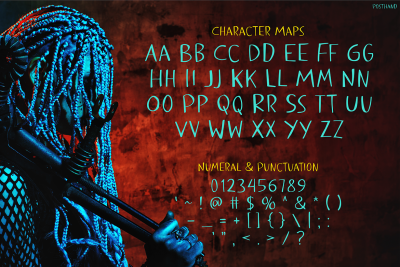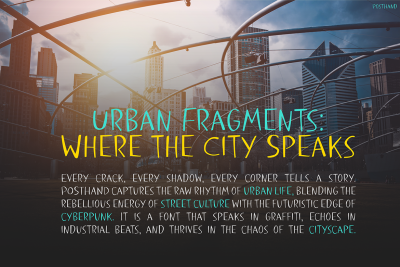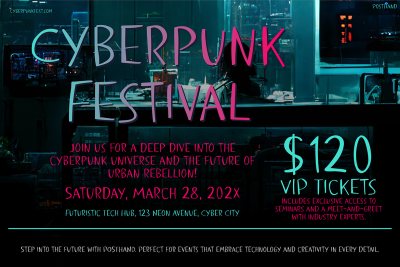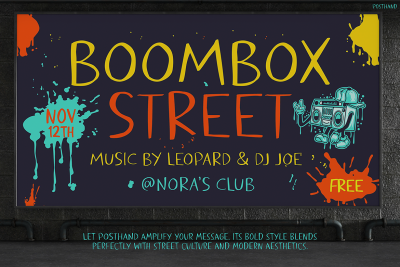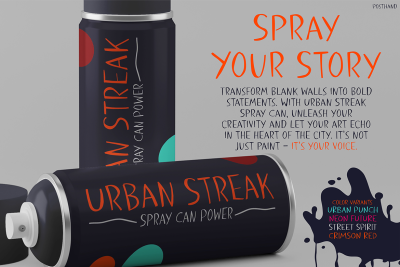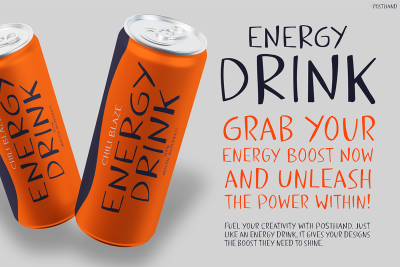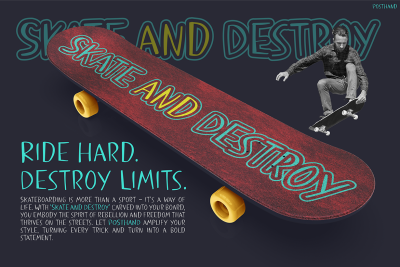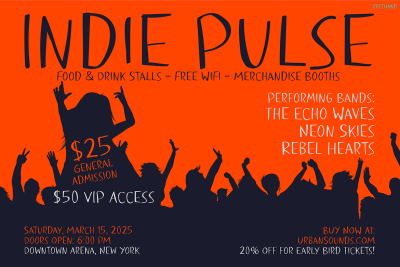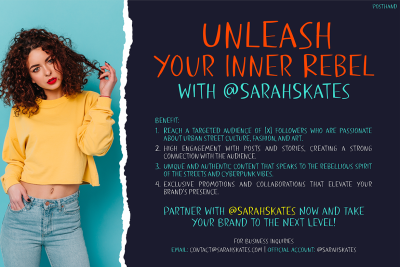
Handwriting Font POSTHAND is a stylish and modern handwritten typeface. It captures the essence of authenticity and creativity. Designed with fluid strokes and bold, playful elements, this font radiates a contemporary charm. Moreover, its irregular and spontaneous strokes create a hand-drawn aesthetic that feels personal and approachable. Additionally, the whimsical nature ensures your text stands out without being overly formal.
With its clean yet expressive design, POSTHAND is perfect for various creative projects. For example, itโs ideal for branding, invitations, and social media graphics where individuality matters. Furthermore, the fontโs smooth curves and effortless flow enhance readability while evoking a casual tone. Whether used as a focal point or a complementary touch, this handwriting font adds a unique and humanized feel to your text. Itโs also a great choice for printed materials like flyers, brochures, or product labels that need a touch of elegance and fun. Moreover, it works well in digital environments, making websites or apps appear more engaging and friendly.
Handwriting Font POSTHANDย Suitable For
Handwriting Font POSTHAND is perfect for adding a creative and personal touch to projects. For instance, designers can use it for branding, logos, and packaging to convey approachability and uniqueness. Similarly, small businesses and creative entrepreneurs will find it ideal for creating a bespoke identity.
Event planners and invitation designers can also use this font for wedding invitations, birthday cards, and other special occasions. Consequently, it adds a personalized and heartfelt feel to materials. Moreover, social media managers will appreciate it for crafting standout posts, stories, and banners that grab attention.
Hobbyists, bloggers, and educators can use POSTHAND for DIY projects, worksheets, or blog headers. Itโs informal yet polished. Ultimately, no matter the application, POSTHAND helps communicate your message in a stylish and memorable way. Furthermore, itโs a perfect choice for anyone wanting to express creativity while maintaining a professional touch. This versatility ensures it appeals to a wide range of audiences, from casual users to professional designers.